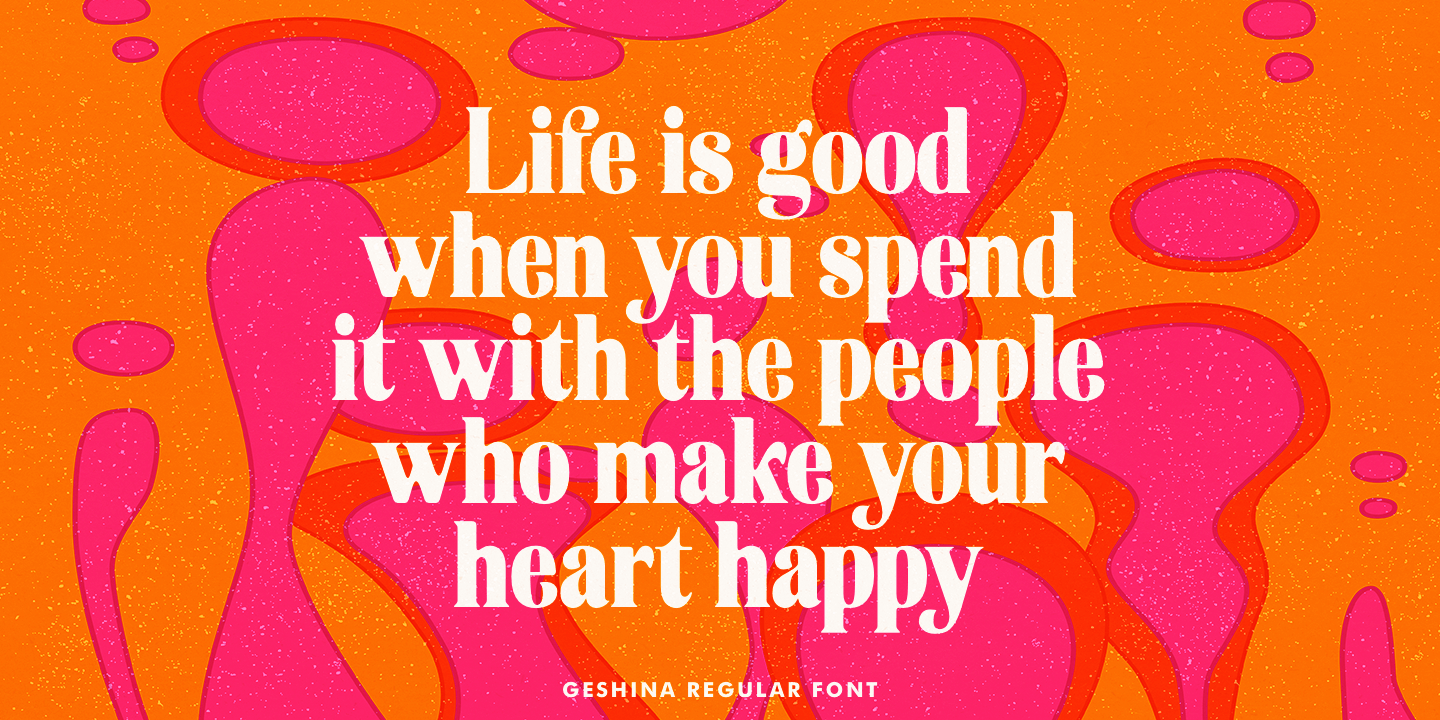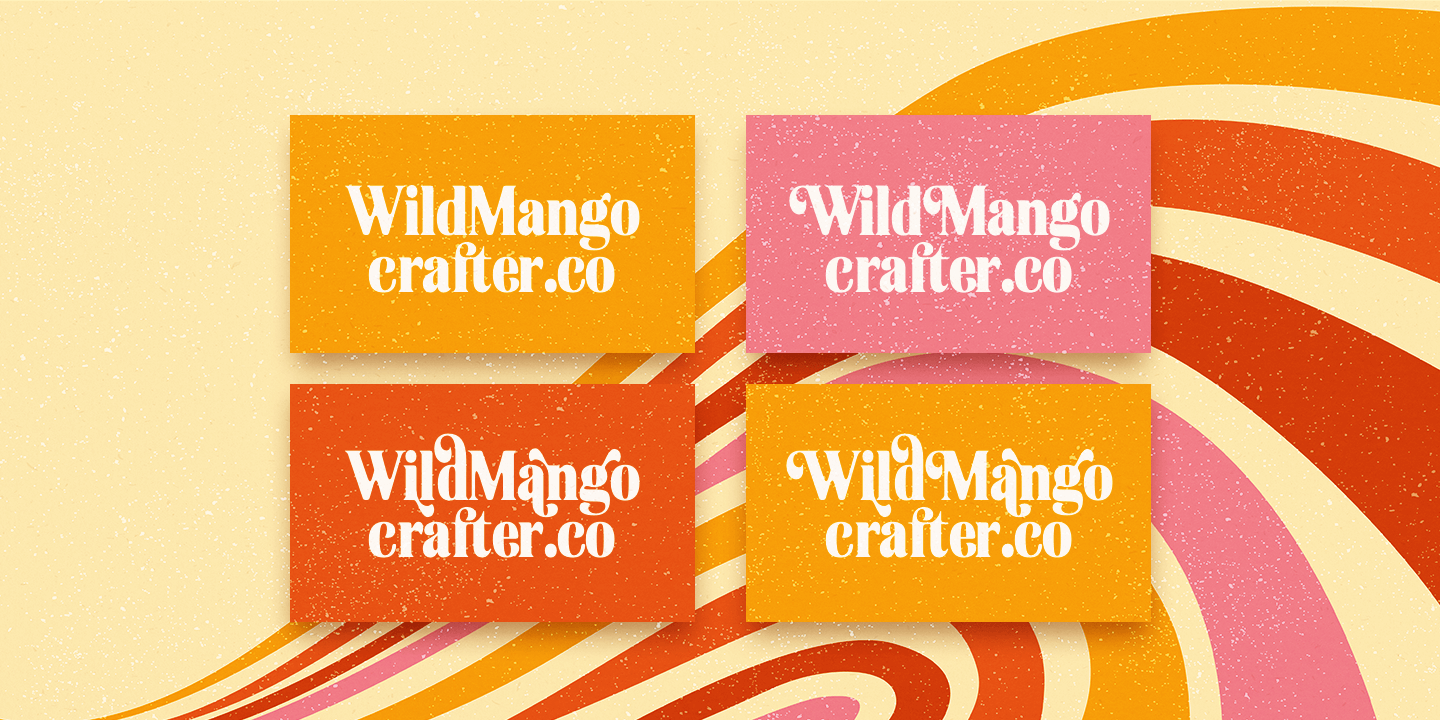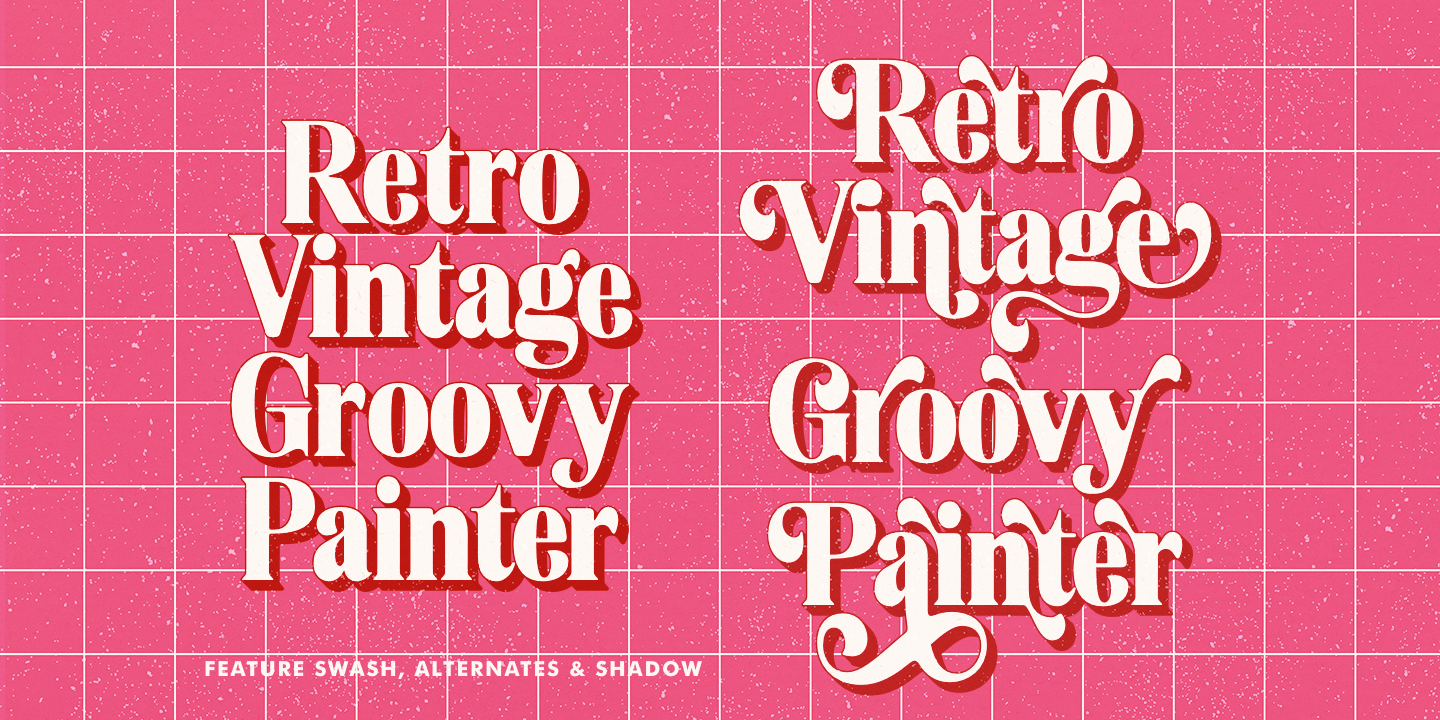
About Geshina
This retro serif font features plenty of curvy letters that give it a refined and cheerful vibe. Tap into the 70s with the Geshina Font With Shadow. Perfect for lovers of all things retro, Geshina is available in three styles: regular, outline, and shadow.…